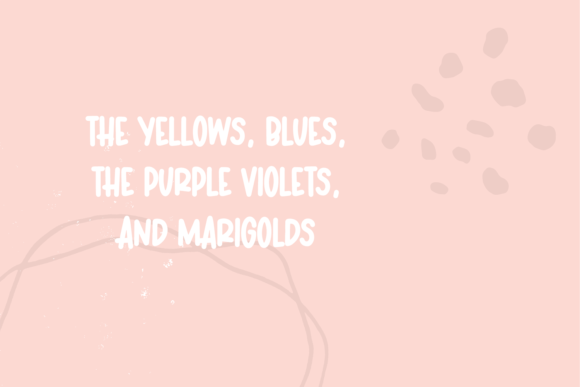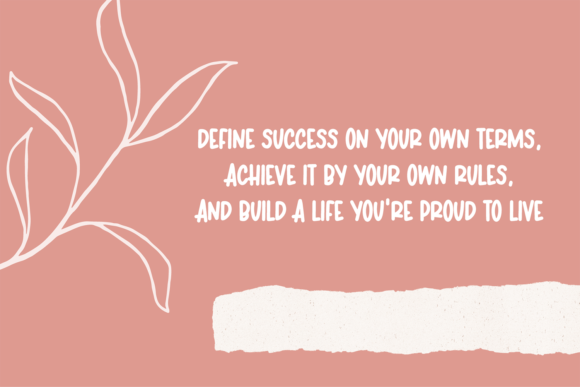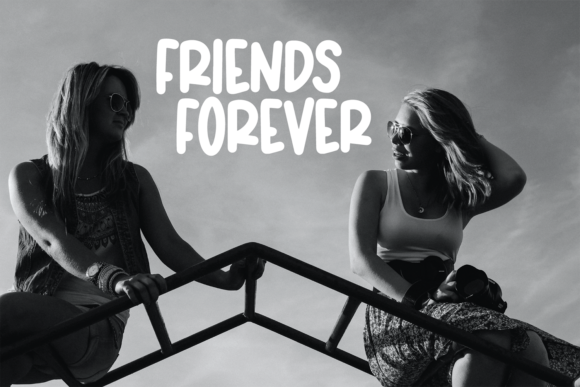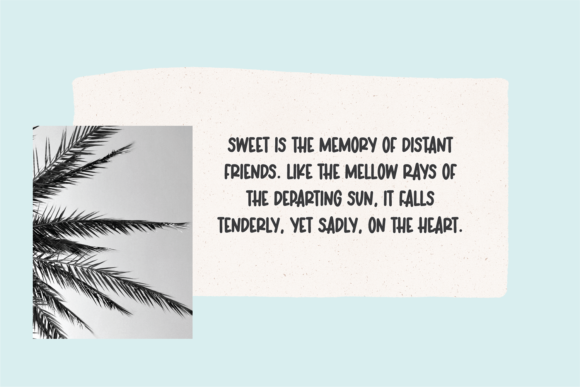
Carolina Font
About Carolina Font
Carolina is a bold and simple script font. Simple and easy to use, this font will be very beautiful if you mix it with your various craft designs.